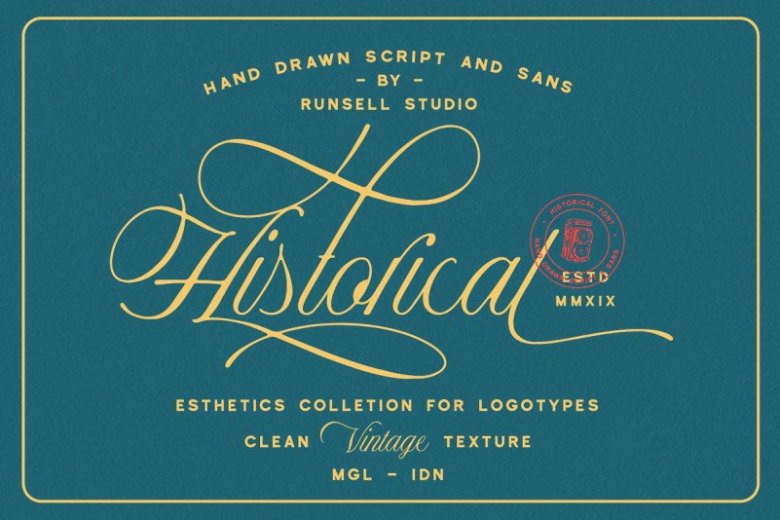
Historical – Handdrawn Font Duo
Historical Font – is a combination of an elegant sans serif font & beauty calligraphy script font based on the expression of real handwriting. With impeccably refined curves and silky smooth edges, this font is perfect for adding a modern touch to your projects. It’s designed and shared by Runsell Studio. It’s consists of clean and textured feature as well as an aesthetic for premium logotypes. The collection include various styles script, sans, and illustration extras. Every single letter contains beautiful alternates characters (ss01 – ss10) and feature ligatures.
The Historical matches applies in some designs such as the logotype, brand, packaging, branding, quotes, business cards and more custom design.